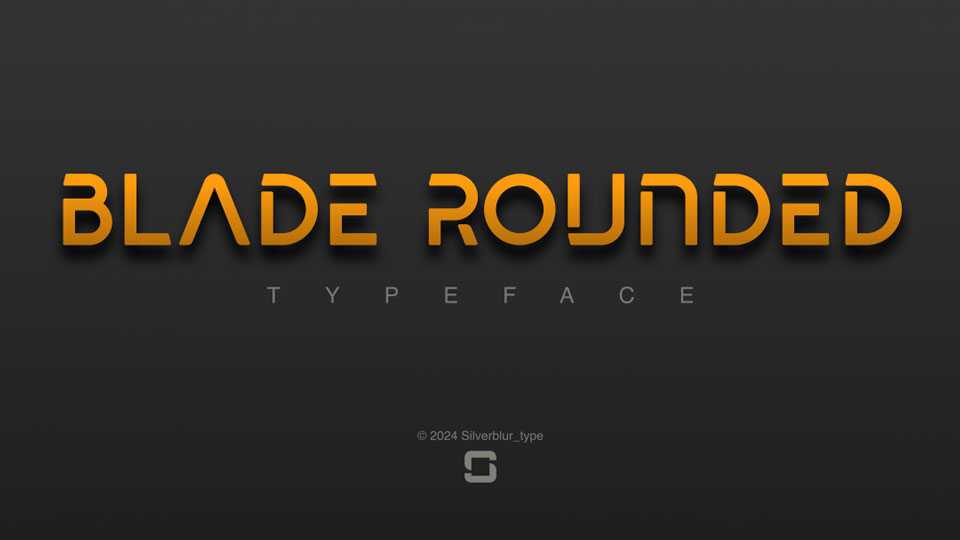
Download Blade Rounded font, a display typeface derived from Skate blade and differs in its rounded edges. This is a modern, geometric and minimalistic font constructed with a few geometric shapes with constant thickness.